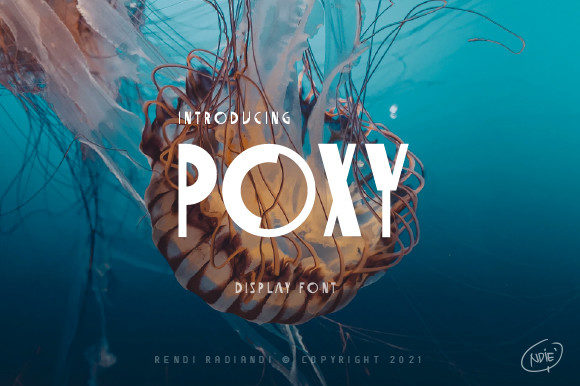
Behold the Poxy Font, a display font that captivates with its enchanting personality. Its exquisite design merges beauty and playfulness, imbuing every letter with a touch of magic. Whether you're crafting captivating magazine titles, building bold brand identities, designing eye-catching advertisements, or sharing inspirational quotes, Poxy Font adds a distinctive flair that elevates your creations.
Journey into a world of boundless creativity with Poxy Font. Its versatile nature seamlessly adapts to a myriad of projects, effortlessly enhancing their visual impact. From stunning posters that command attention to social media posts that resonate with your audience, Poxy Font empowers you to communicate your message with captivating style. Unleash your imagination and explore the endless possibilities that await.
With Poxy Font, your designs transcend the ordinary and embrace the extraordinary. Its intricate details and playful spirit infuse your projects with a captivating allure that draws eyes and hearts alike. Experience the transformative power of Poxy Font as it elevates your designs to new heights of visual appeal.